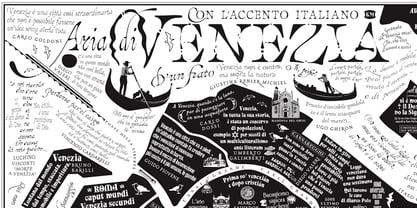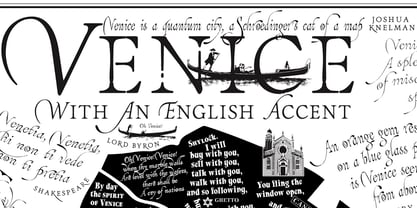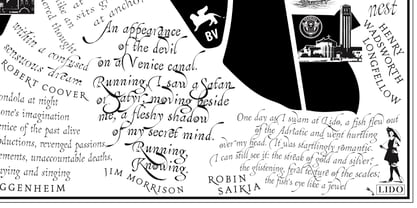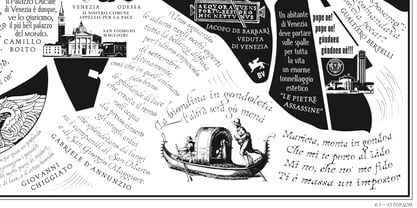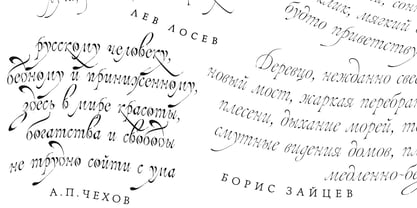
Acqua Aldina
by Letterhead Studio-YG
The Acqua Aldina Font Family was designed by Yuri Gordon and published by Letterhead Studio-YG. Acqua Aldina contains 1 styles. More about this family
Acqua Aldina is probably the most difficult of all my fonts. It took him a year of work, and mostly manual. This variable font, drawn for maps of Venice, depicts water. In the light part, it turns into individual drops. It blurs in spots in the dark.
The letters are deliberately distorted, floating, stretching. But at the same time, they never stop reading — this was the main condition set for himself.
Four axes allow you to control the width, density, stretch the tails, and finally distort the shape.
In the very depths of the Aqua is one of the first italics by Francesco Griffo, cut for Aldus Manutius. And then stylistic sets turn Renaissance italics into a Baroque script. Which, in turn, can be reduced to almost irregular calligraphy.